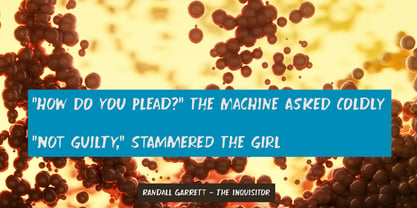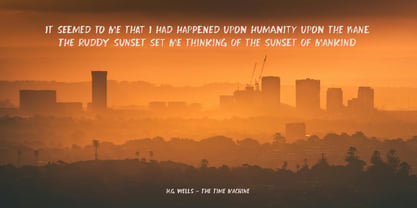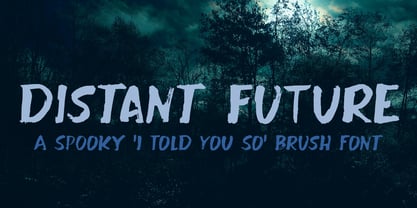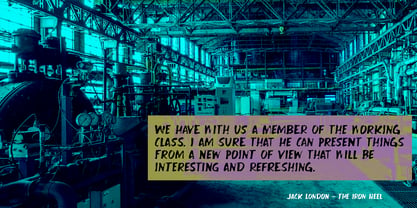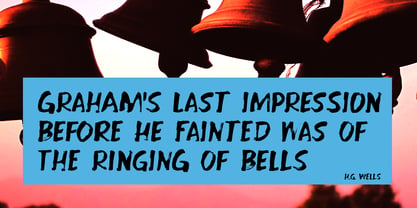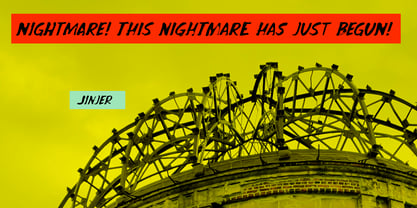
Distant Future Pro
por Hanoded
La familia tipográfica Distant Future Pro fue diseñada por David Kerkhoff y publicada por Hanoded. Distant Future Pro contiene 2 estilos y opciones de paquete familiar. Más información sobre esta familia
Distant Future is a bit of a strange font: it looks spooky, it may even be scary, but underneath all that grunge is a really sophisticated font. Of course, you can use it for your protest signs, your posters, your halloween websites and anything that needs a bit of horror, but it would look soooo good on product packaging and book covers as well. So, go ahead and give it a whirl!
Hanoded is run by Dutchman David Kerkhoff. His fonts are a mishmash of styles, as he just creates whatever pops into his head. You will find a lot of brush fonts in his collection, as his favourite tools are brushes and Chinese ink, with cartoon style fonts and script fonts complementing his repertoire. Aside from making fonts, David occasionally guides tours in far-flung places, renovates his '30's house and tries reasoning with his wife and (teenage) kids. Not an easy task!